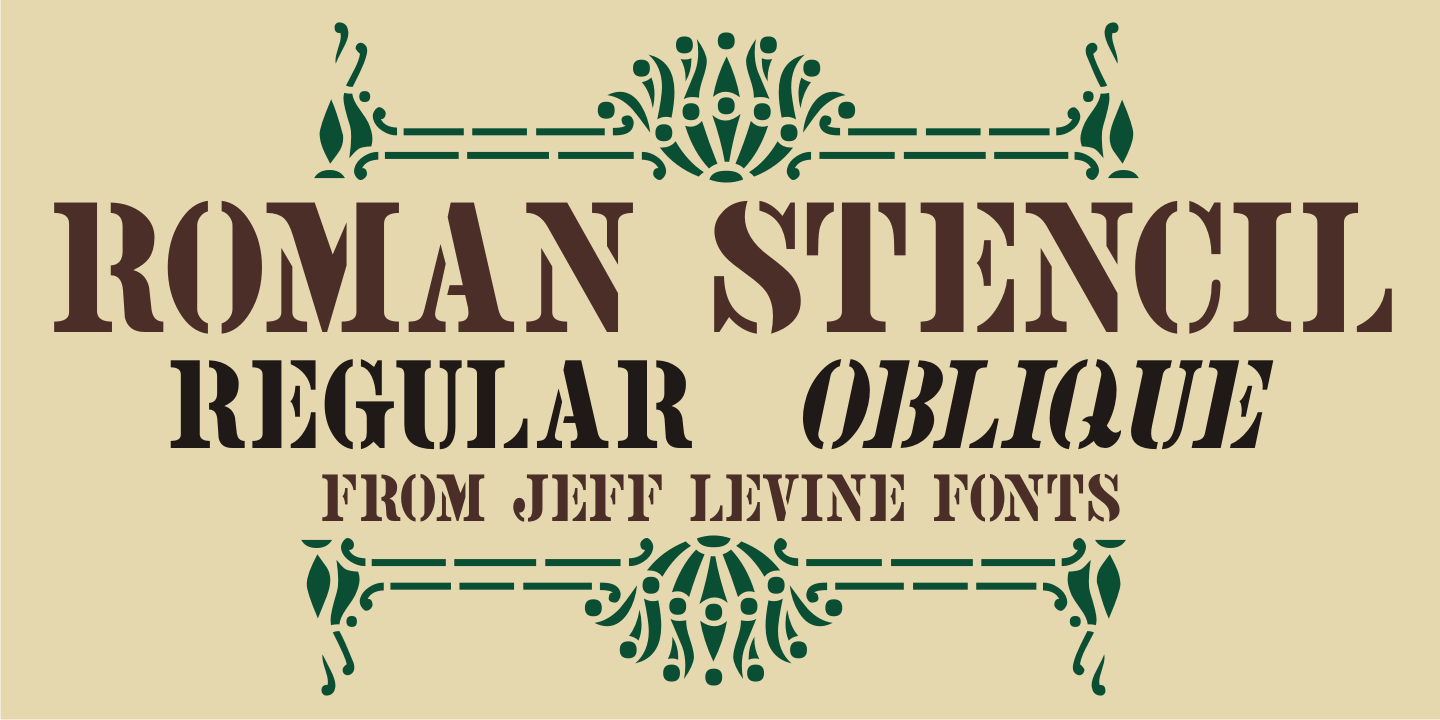
Roman Stencil
Roman Stencil JNL is a condensed version of the classic Roman typeface found on many vintage hand-punched brass stencils made for packing and shipping merchandise.
This digital interpretation is available in both regular and oblique styles.